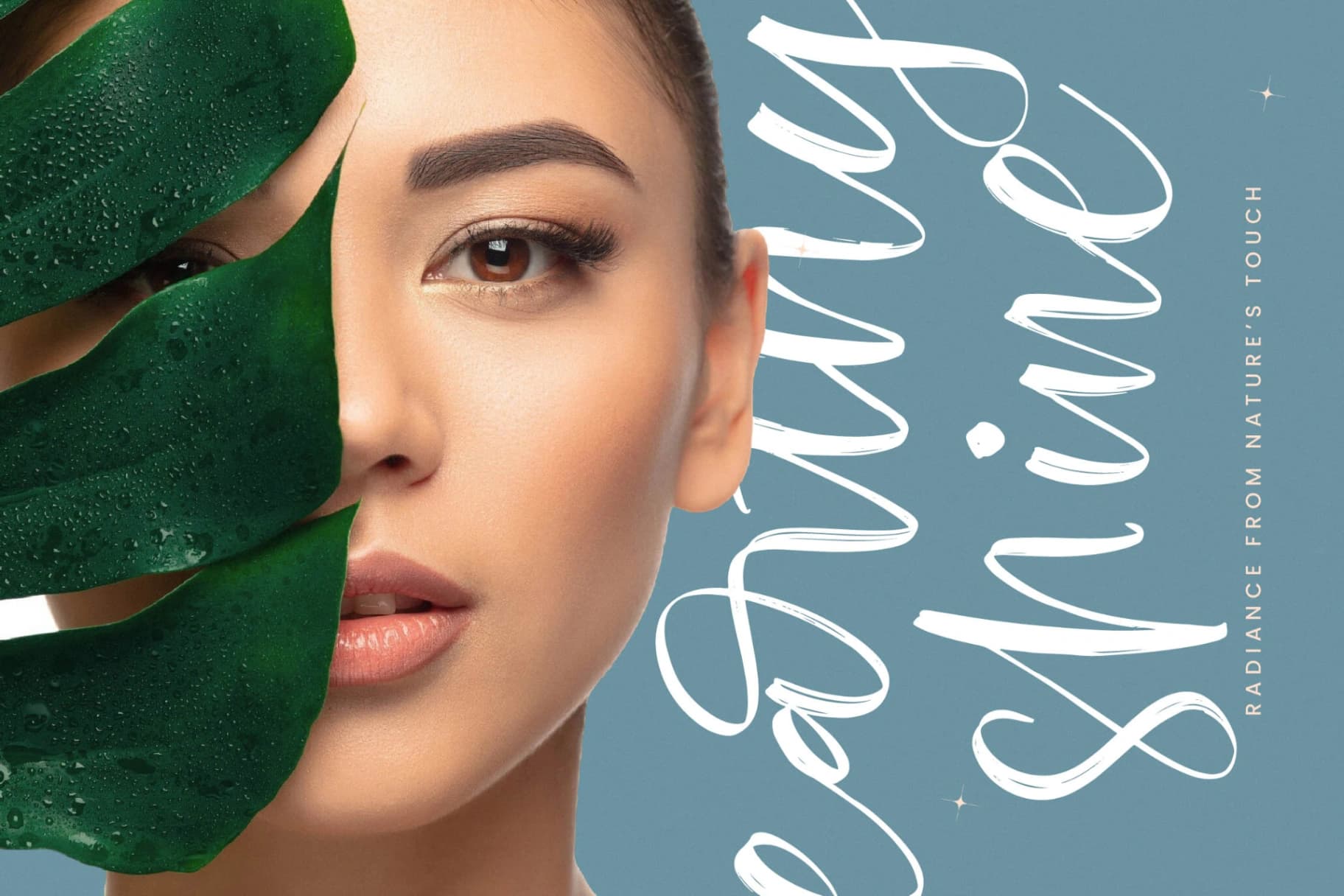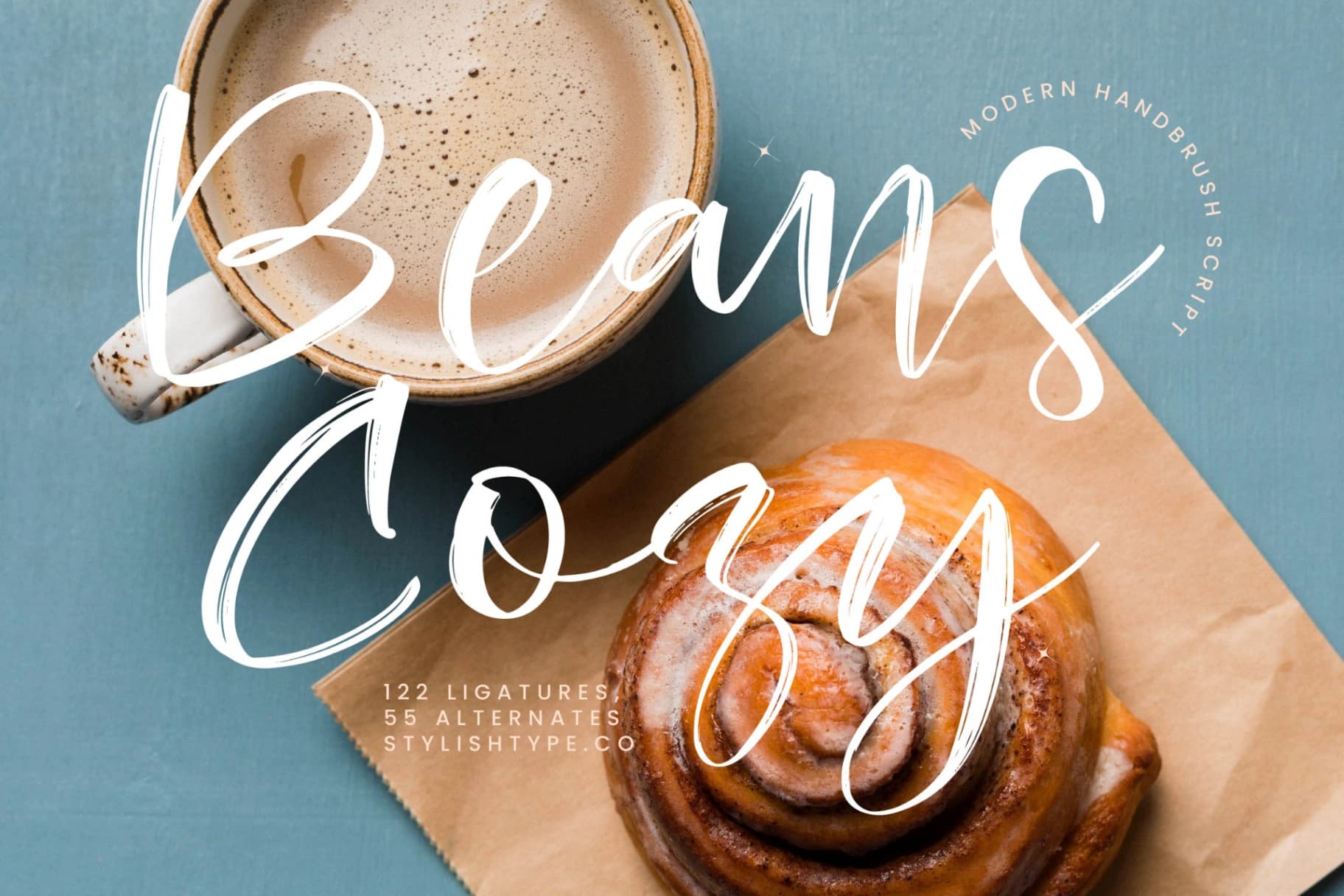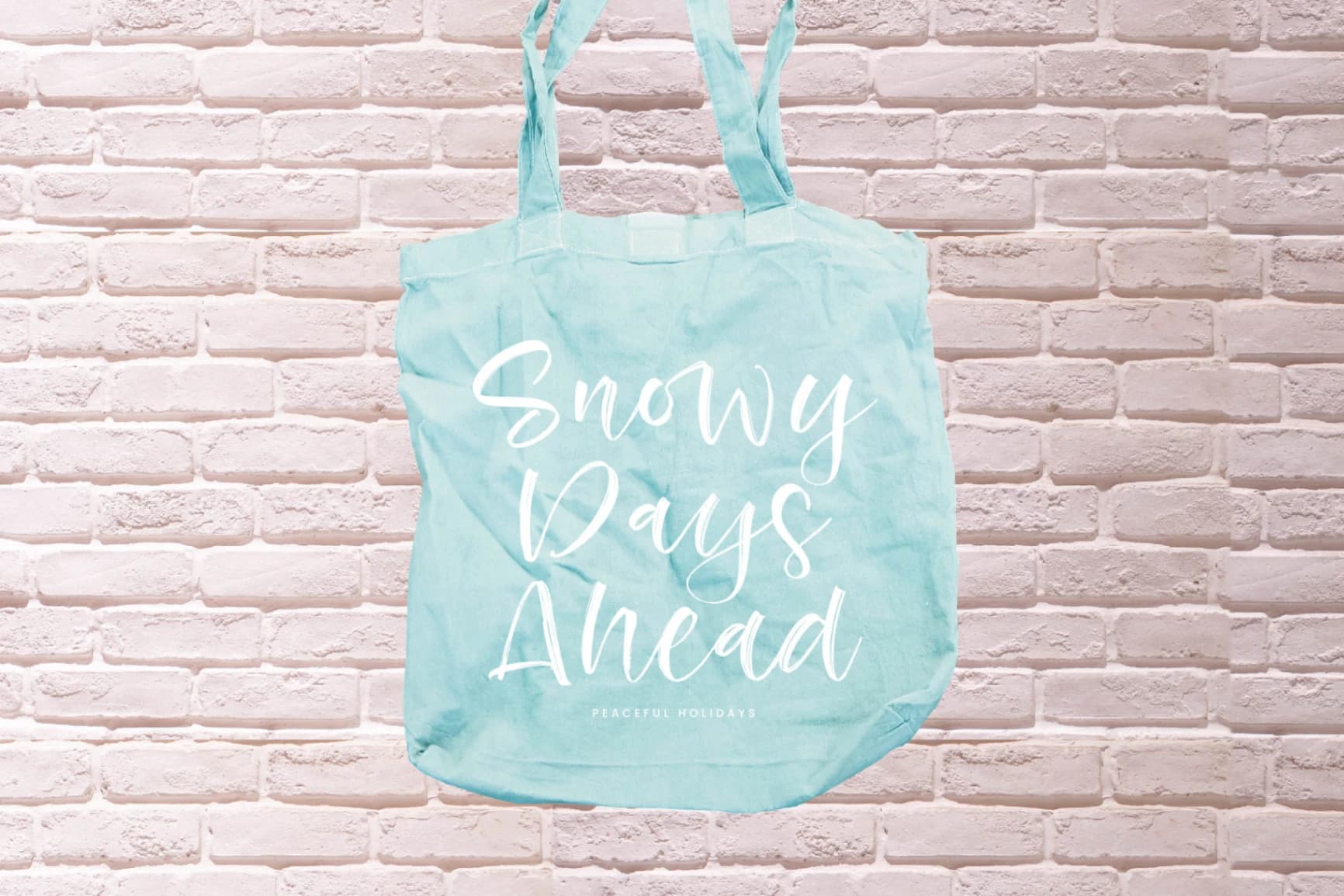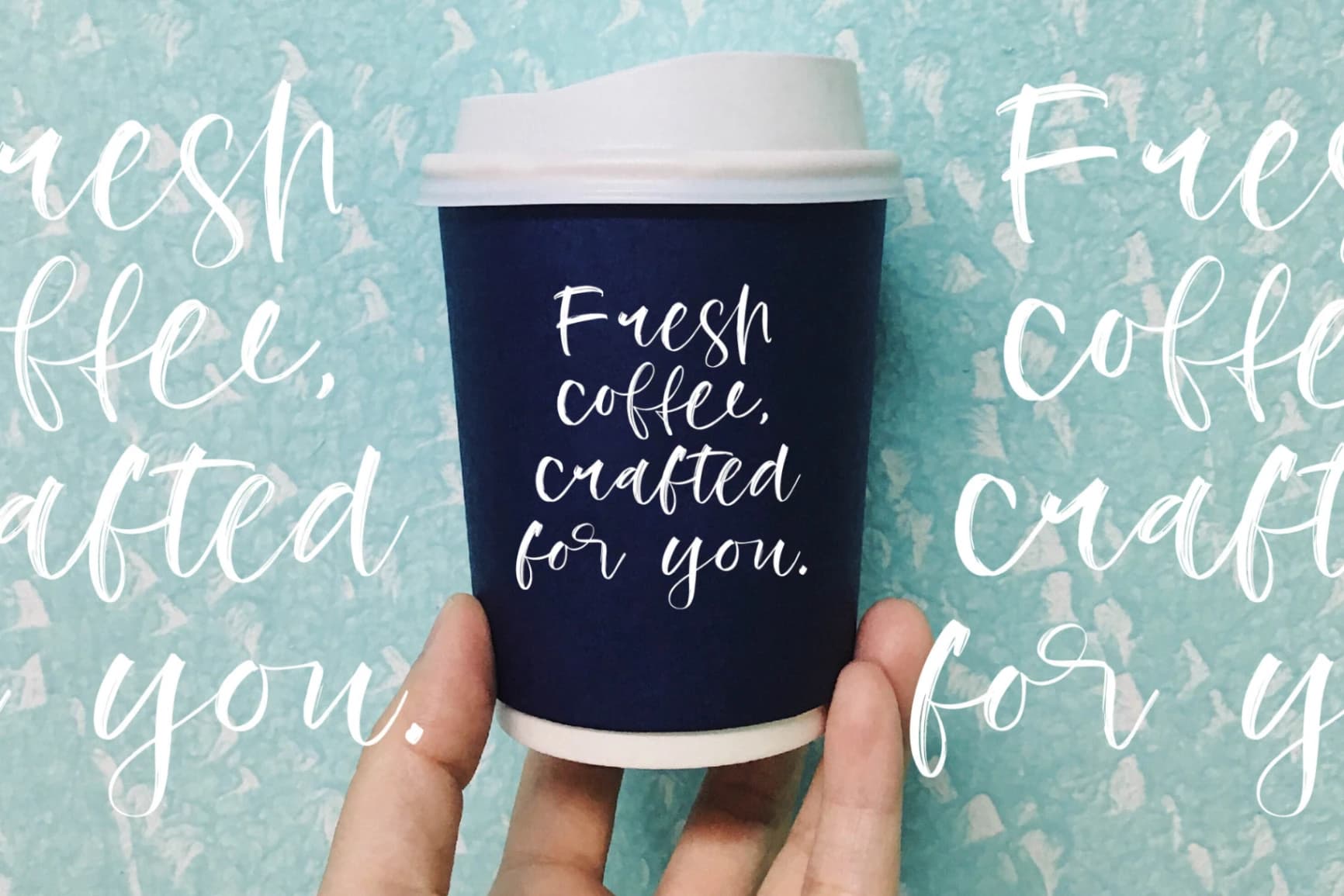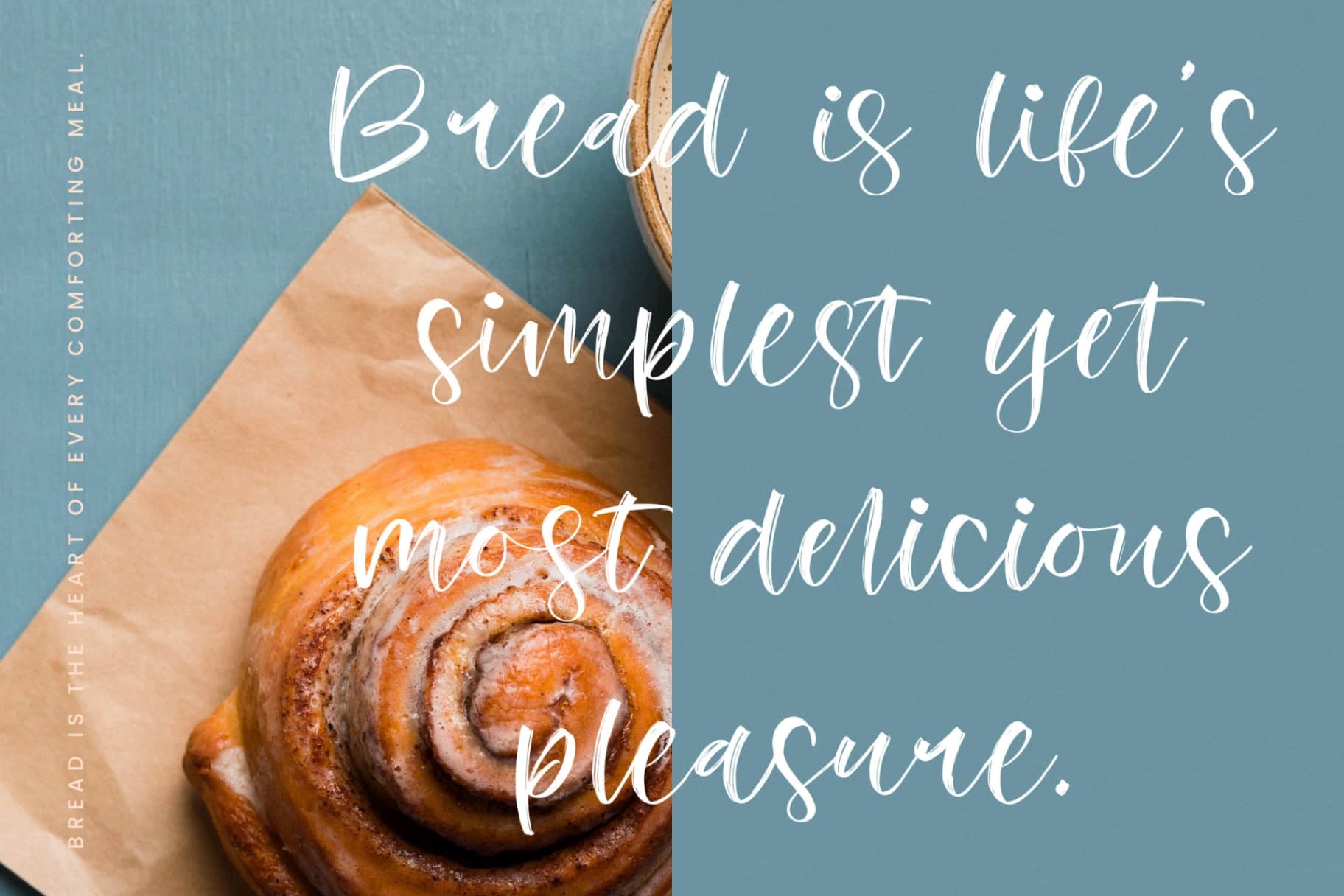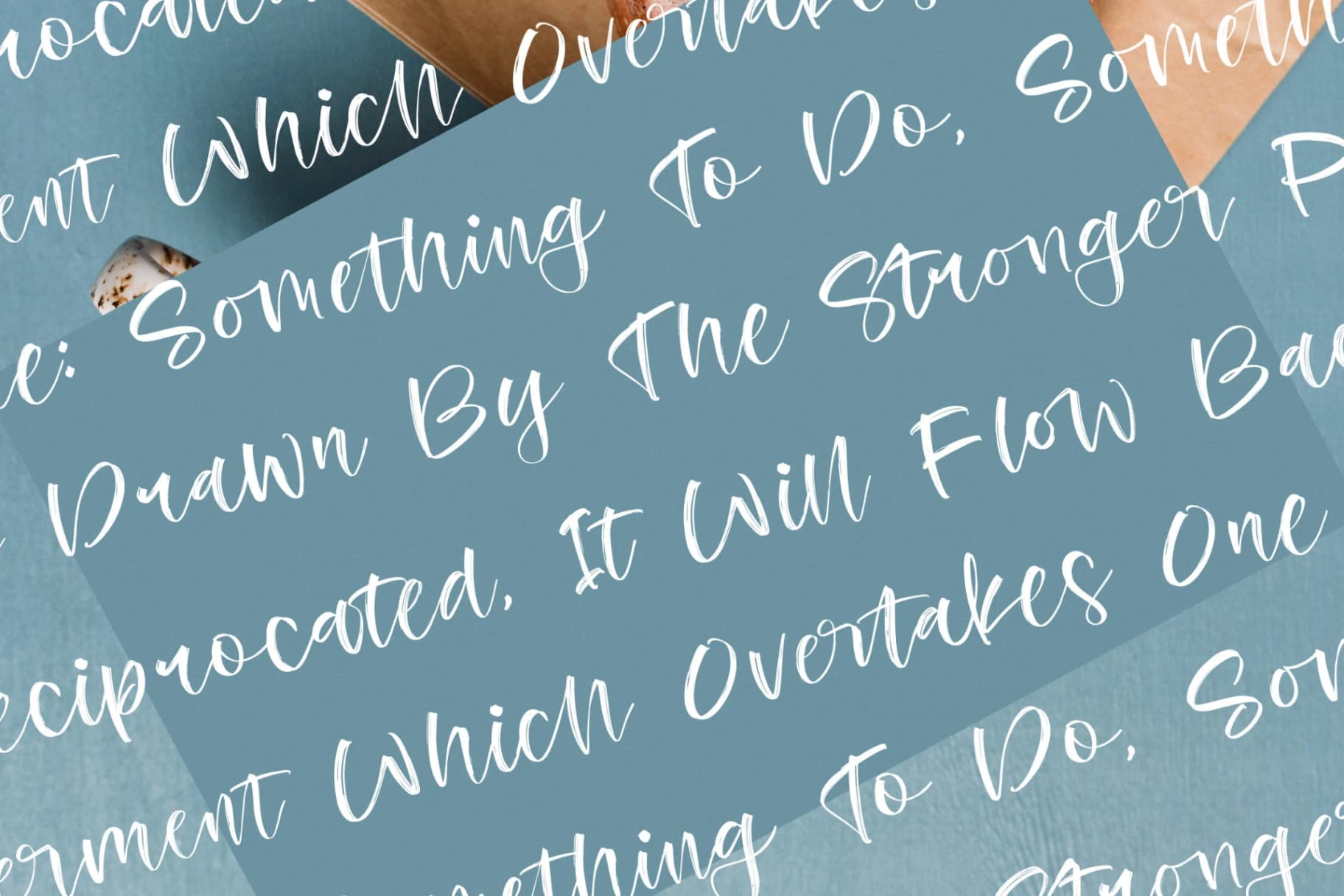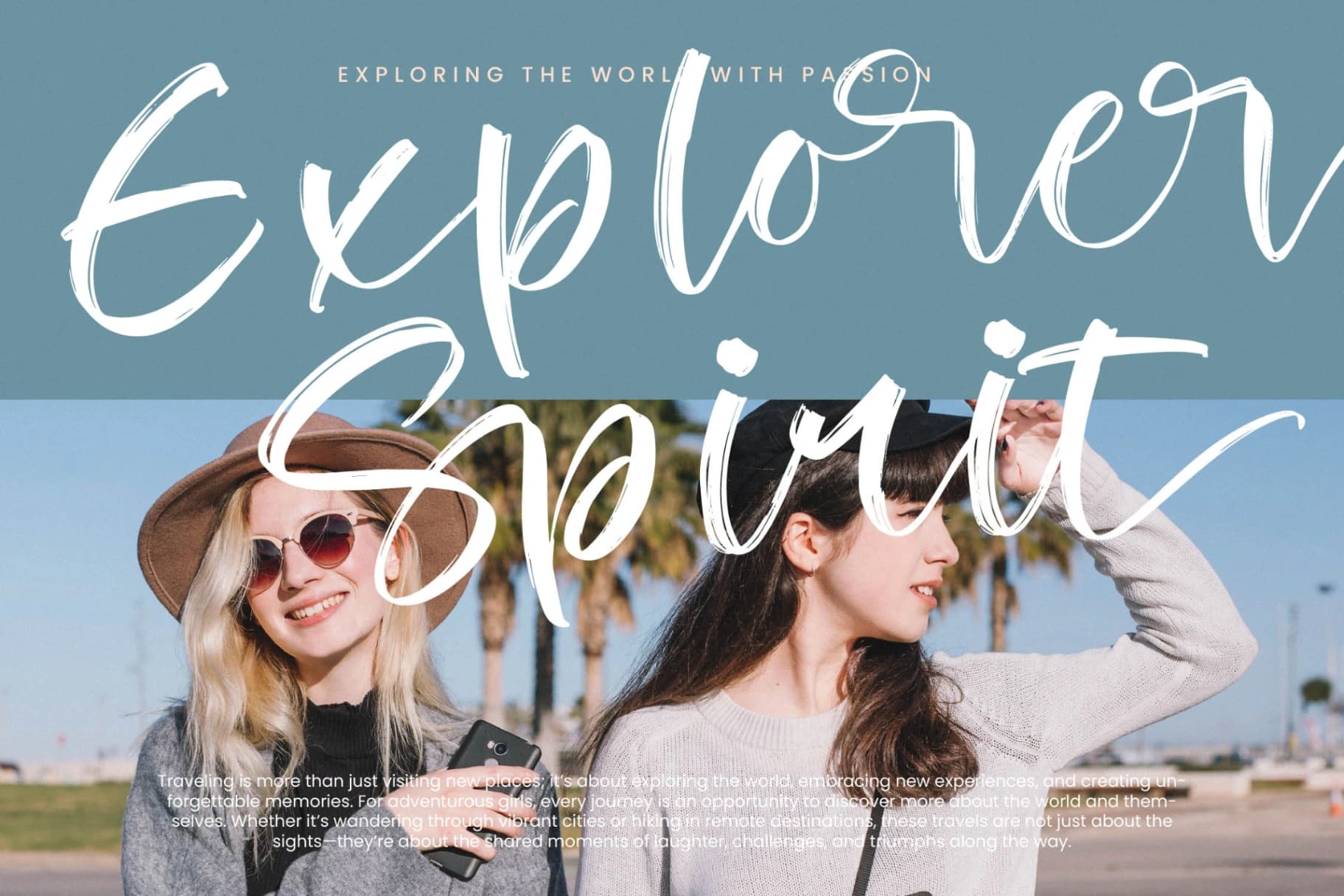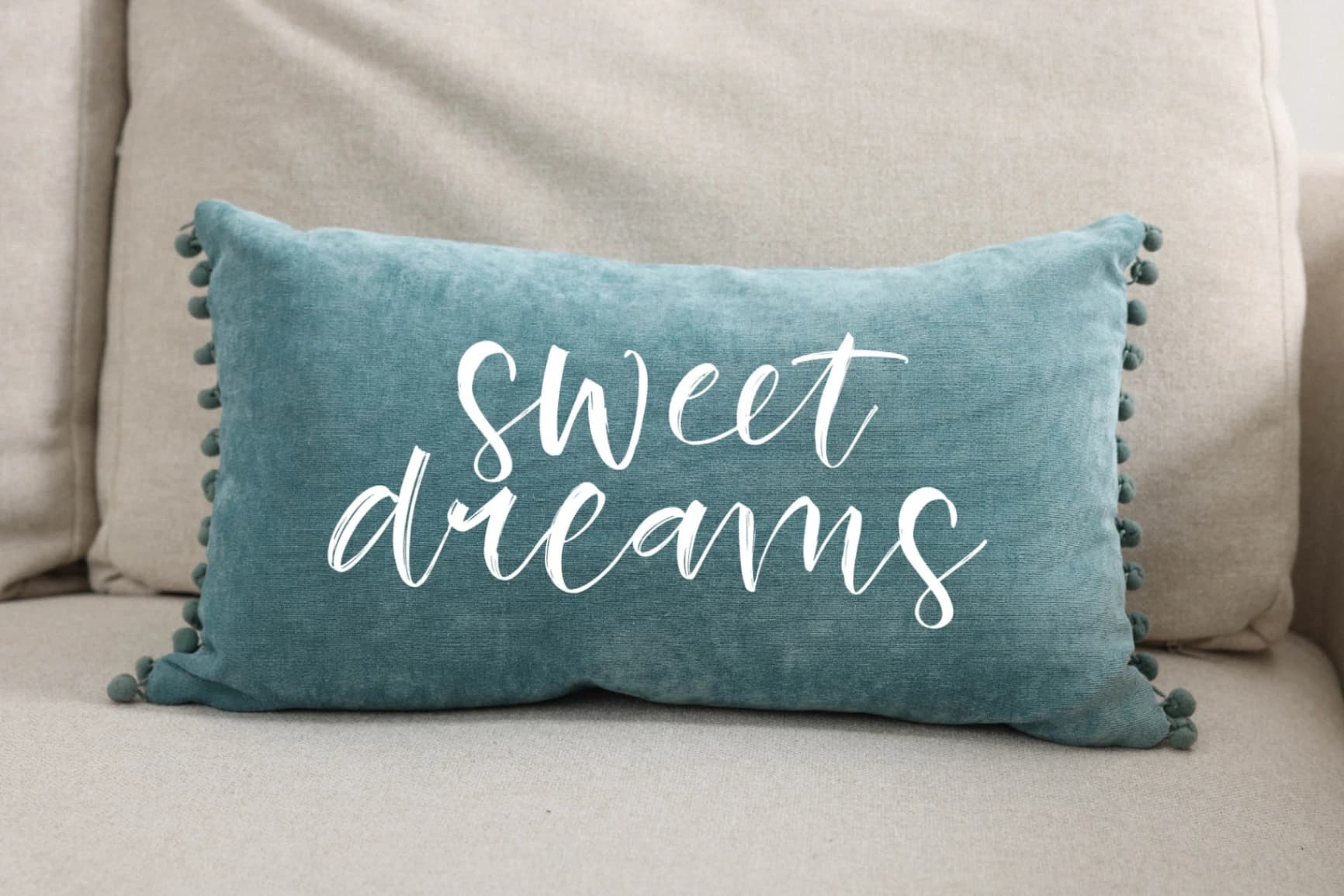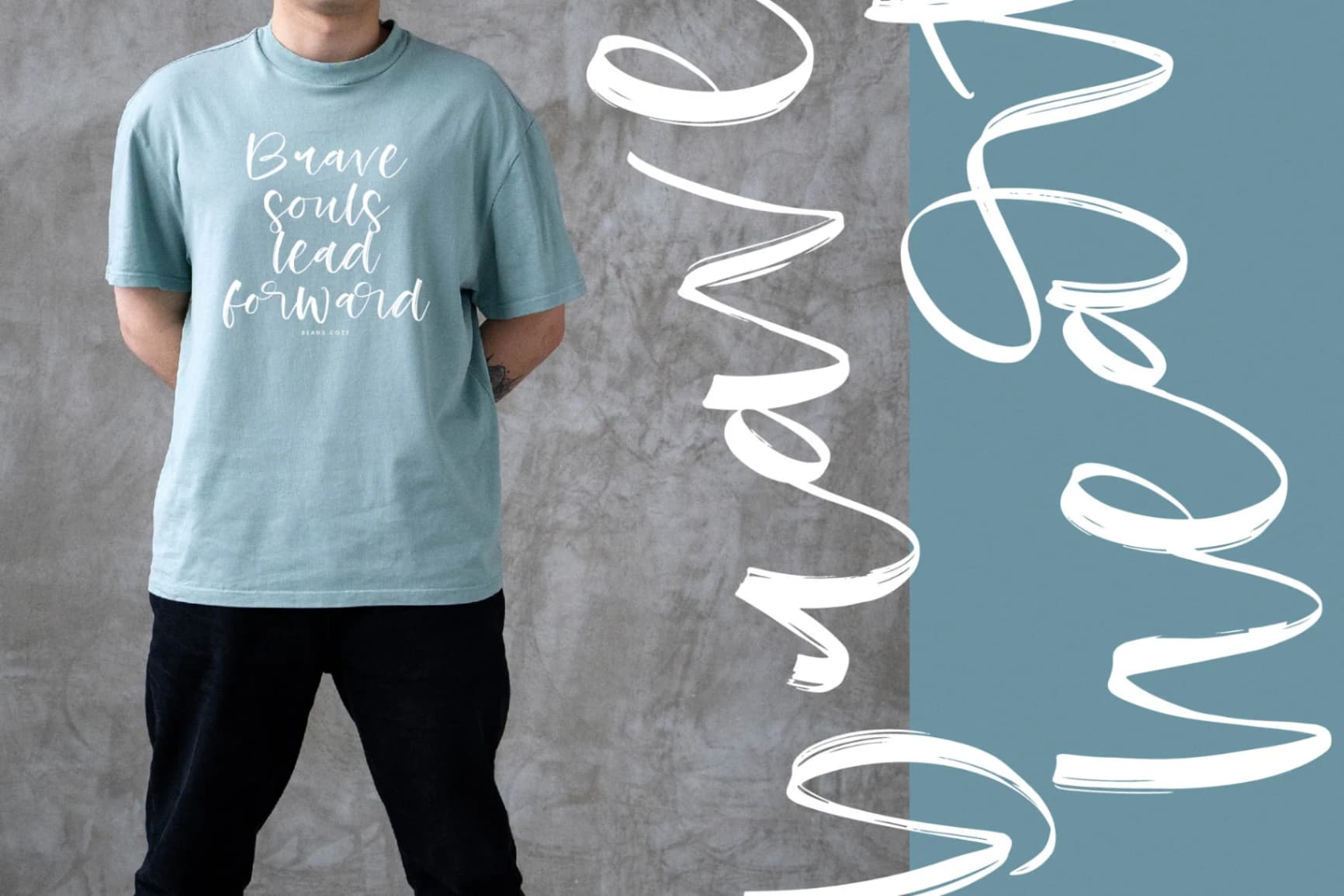
Beans Cozy - Modern Handbrush Script
Discover the warmth and authenticity of Font Beans Cozy - Modern Handbrush Script Script, a truly captivating handbrush script designed to infuse your projects with contemporary elegance. Its distinctive, organic strokes and fluid connectivity evoke a sense of approachable luxury, perfect for brands seeking a personal, handcrafted touch. This font exudes a cozy yet refined charm, making every word feel genuinely expressive and inviting.
Crafted with meticulous attention to detail, Font Beans Cozy - Modern Handbrush Script Script boasts an impressive array of 122 ligatures and 55 alternates, providing unparalleled customization options to elevate your typography. These rich OpenType features allow for truly unique compositions, ensuring your designs stand out with a natural, human touch. The dynamic high-contrast brushwork ensures readability and impact, whether used for headlines or intricate design elements.
With its extensive multilingual support, Font Beans Cozy - Modern Handbrush Script Script adapts seamlessly across global markets, making it incredibly versatile for international projects. This comprehensive character set ensures your message resonates clearly and beautifully, regardless of language. Embrace a font that truly understands global communication, offering uncompromised style and adaptability for every design challenge.
Ideal for luxury branding, artisanal product packaging, captivating social media campaigns, and heartfelt greeting cards, Font Beans Cozy - Modern Handbrush Script Script is your go-to for creating a memorable and engaging visual identity. It’s perfect for adding a boutique feel to café menus, wedding invitations, or any project requiring a blend of modern sophistication and genuine warmth. Elevate your design work with this expressive and adaptable script.